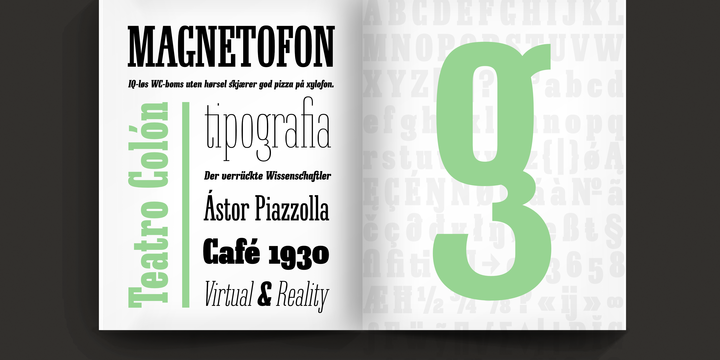
Ganges Slab Font Family
Glad to introduce to you a slab font family. Introducing Ganges Slab Font Family! Ganges was designed by ROHH. Ganges Slab is a condensed slab serif typeface inspired by Central European advertising typography from late XIX century. It is a perfect match for Ganges Sans. The font has condensed proportions and original letter shapes. Ganges is designed mainly for editorial design, especially for display use, as well as short paragraphs of text. Its narrow proportion makes it very practical to use for posters and magazine covers. Characteristic letter forms fit great for branding, logo and packaging design. It is also a very interesting choice for websites and e-book headlines.